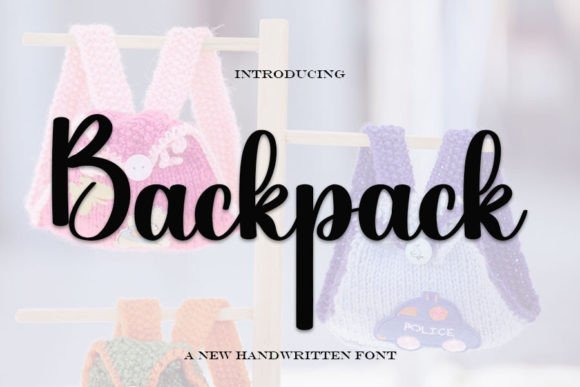
Embark on a calligraphic journey with Backpack Font, a script font family that dances off the page with its elegant charm and captivating allure. Dive into a world of handwritten beauty, where each letter flows into the next with a graceful rhythm that captivates the eyes and stirs the soul.
Immerse yourself in the timeless appeal of Backpack Font, a creation of the talented putrasyahreza00. Let your imagination soar as you explore its incredibly distinct style, effortlessly weaving together tradition and modernity. Discover the magic of Backpack Font and watch your designs transform into breathtaking works of art.
With Backpack Font, you'll unlock a treasure trove of creative possibilities. Its delicate strokes and sweeping curves lend a touch of sophistication and romance to any project, making it the perfect choice for invitations, branding, social media graphics, or any endeavor where elegance is paramount.
Unleash your inner artist and let Backpack Font guide you on a journey of self-expression. Craft exquisite logos that leave a lasting impression, design eye-catching posters that demand attention, or create stunning wedding invitations that capture the essence of your special day. The possibilities are endless with Backpack Font as your creative companion.
Don't settle for ordinary fonts that blend into the background. Embrace the individuality and charm of Backpack Font and watch your designs blossom into masterpieces. Elevate your projects to new heights of beauty and distinction with this remarkable script font family.